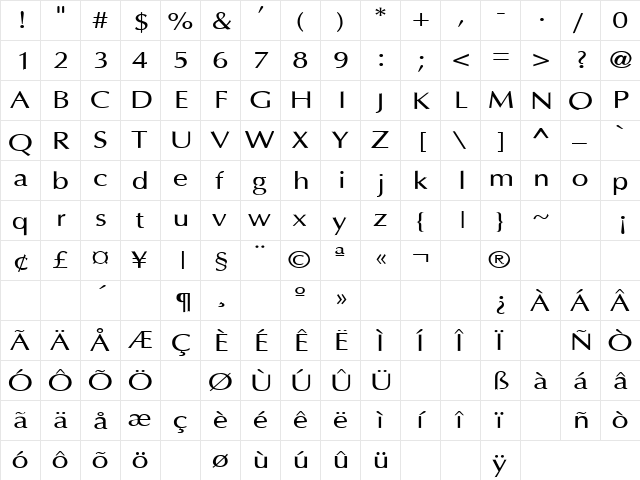
Friends 26 Regular
Design Context for Friends 26 Typeface
Friends 26 takes a measured approach to typography — its balanced proportions and neutral character make it a reliable workhorse for both digital and print work.